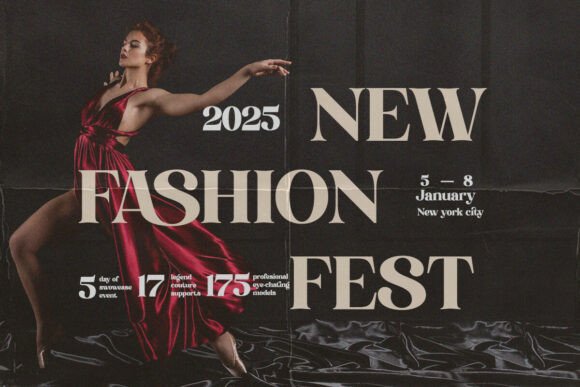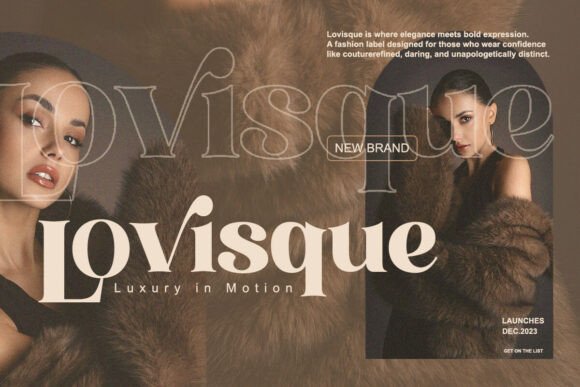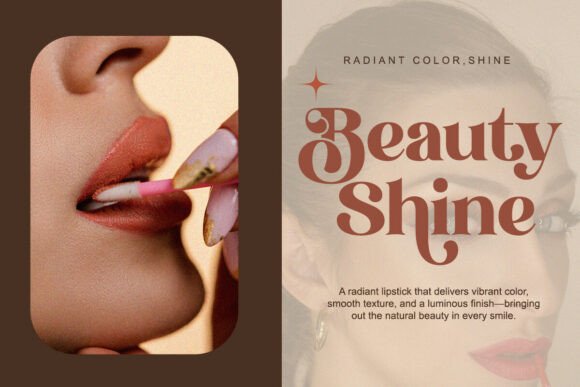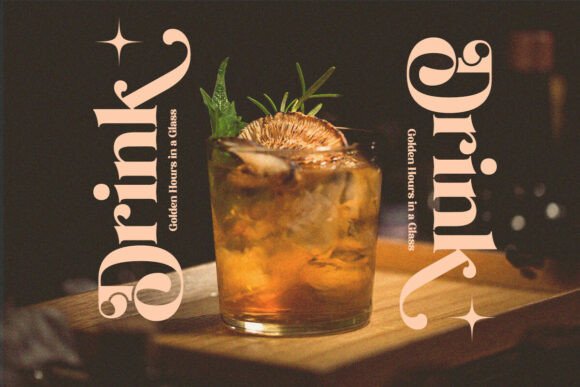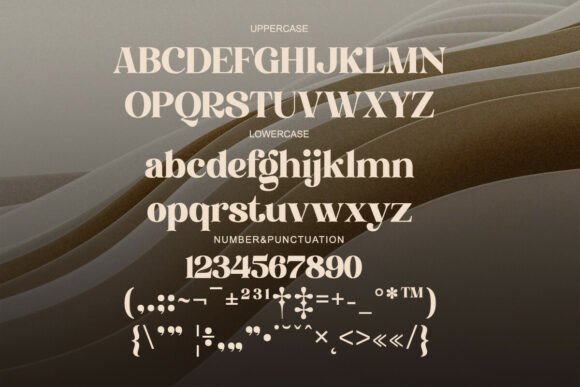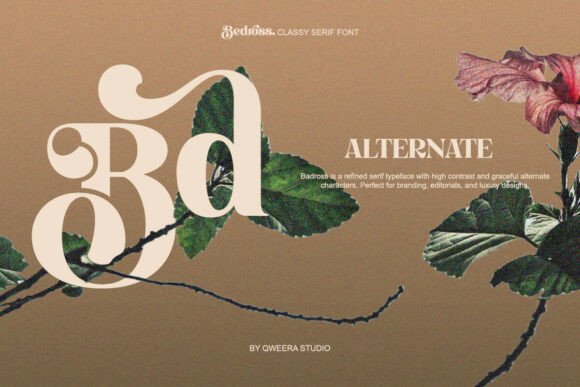
Introducing Bedross Font: Elevate Your Designs with Elegance and Edge
In the world of typography, a font can make or break a design. For creatives seeking to infuse their projects with a touch of sophistication and high-fashion flair, Bedross Font emerges as a game-changer. This bold and artistic display font seamlessly fuses modern elegance with unique, eye-catching elements, making it the perfect choice for designs that demand attention and character.
Unleash Your Creativity with Bedross
Bedross is more than just a font; it’s a statement piece. Every letter is meticulously sculpted with dramatic curves, stylish swashes, and strong serifs, exuding a sense of luxury and refinement. This typeface is tailor-made for a variety of applications, including editorials, brand identities, album covers, fashion campaigns, packaging, and luxury logos. Its versatility stems from its perfect balance of classic serif roots and creative contemporary detailing, making it suitable for both digital and print media.
Key Features of Bedross Font
- Comprehensive Character Set: Bedross includes a full set of uppercase, lowercase, punctuation, and symbols, ensuring you have everything you need to create stunning designs.
- PUA-Encoded for Easy Access: The font is PUA-encoded, allowing for effortless access to all glyphs, swashes, and alternate characters. This feature enables you to customize your designs with ease, giving you the flexibility to experiment and push the boundaries of your creativity.
- Striking, Sculptural Presence: Bedross boasts a unique, sculptural quality that sets it apart from other fonts. Its dramatic curves and stylish swashes add a touch of drama and sophistication to any design.
Ideal Applications for Bedross Font
Bedross Font is perfect for a range of design projects, including:
- Luxury Fashion Branding: Elevate your fashion brand with a font that exudes elegance and sophistication.
- High-End Cosmetic Packaging: Make a statement with packaging that reflects the luxury and quality of your products.
- Premium Editorial Layouts: Add a touch of refinement to your editorial designs, whether it’s for a magazine, newspaper, or online publication.
- Elegant Logo Creation: Create a lasting impression with a logo that embodies the essence of your brand.
- Sophisticated Stationery Design: Elevate your stationery with a font that conveys elegance and professionalism.
Why Choose Bedross Font?
With Bedross Font, you gain access to a typeface that is both versatile and visually stunning. Its unique blend of classic serif roots and creative contemporary detailing makes it an ideal choice for designers and crafters seeking to create designs that stand out. Whether you’re working on a luxury fashion brand or a high-end cosmetic packaging project, Bedross delivers elegance with an edge.
Bedross Font is a bold and artistic display font that is sure to elevate your designs with its striking, sculptural presence. With its comprehensive character set, PUA-encoded feature, and versatile applications, it’s an ideal choice for creatives seeking to add a touch of sophistication and high-fashion flair to their projects. Explore the world of Bedross Font today and discover a new level of typographic excellence.